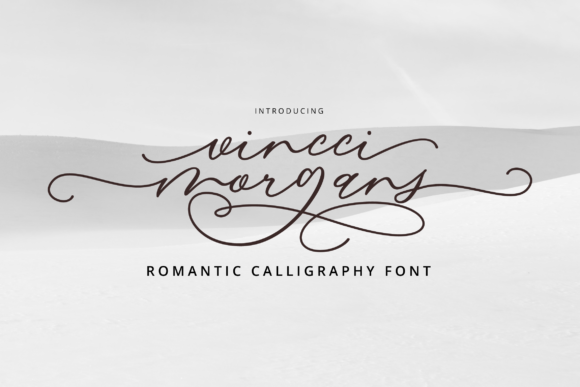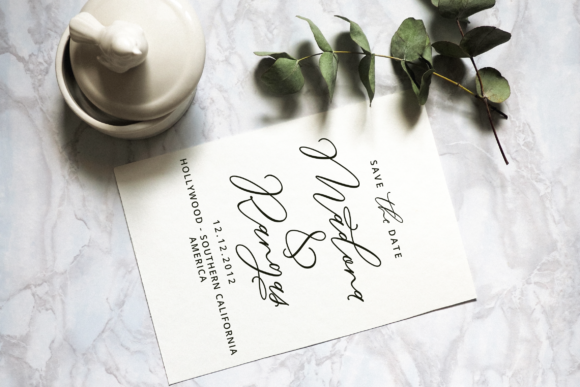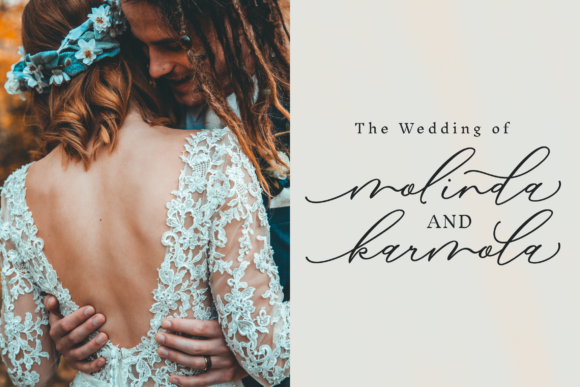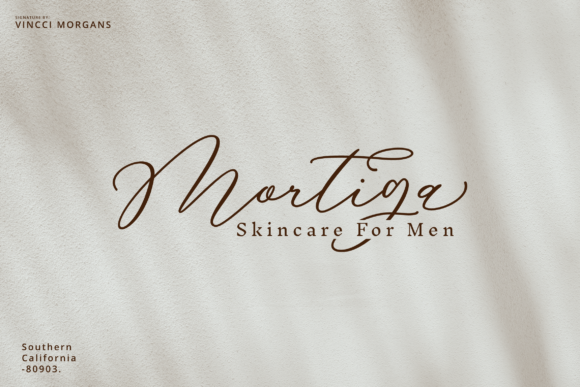
Vincci Morgans Script Font
About Vincci Morgans Script Font
Vincci Morgans Script is a beautiful modern calligraphy script font. It is suitable for branding, wedding invitations, greeting cards, posters, name cards, quotes, blog header, logo, fashion, apparel, letter, stationery, and many other projects! This font is PUA encoded which means you can access all of the glyphs and swashes with ease!